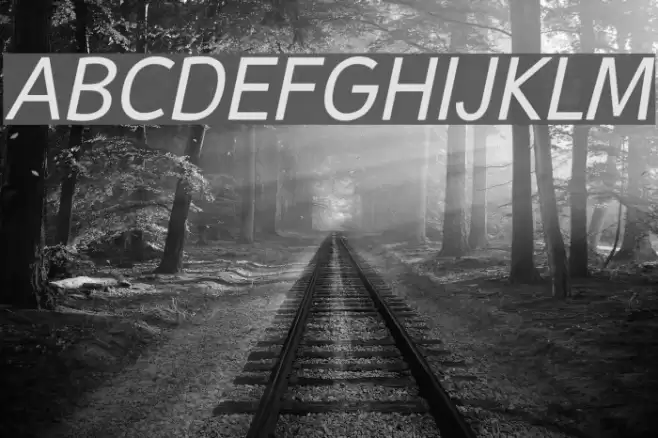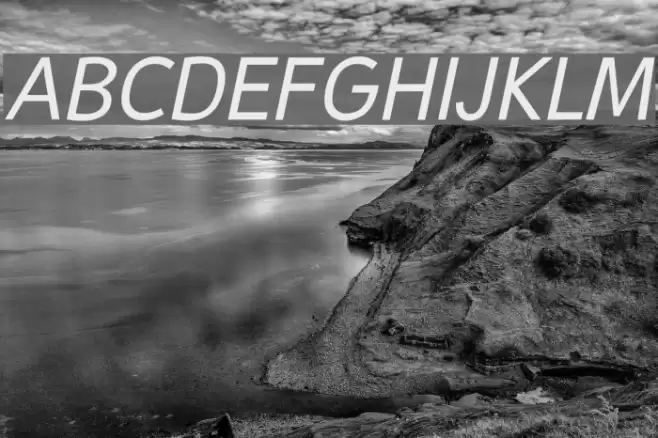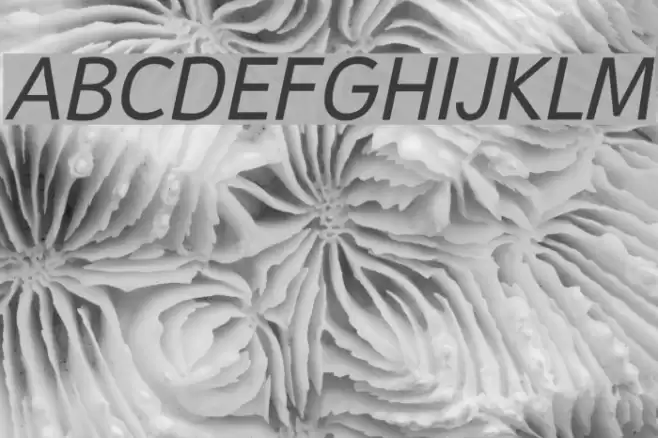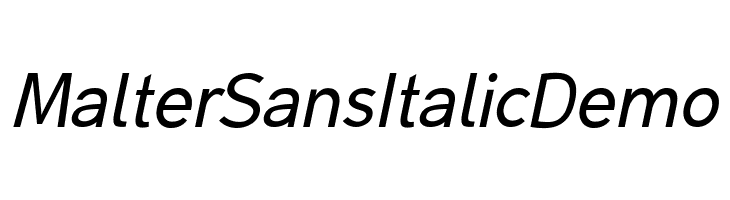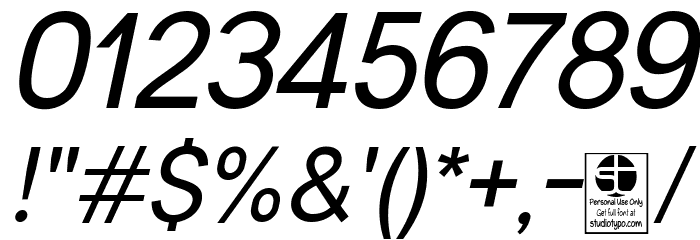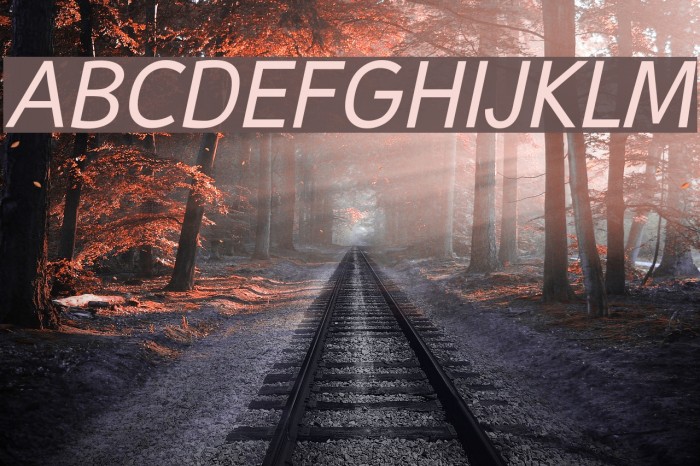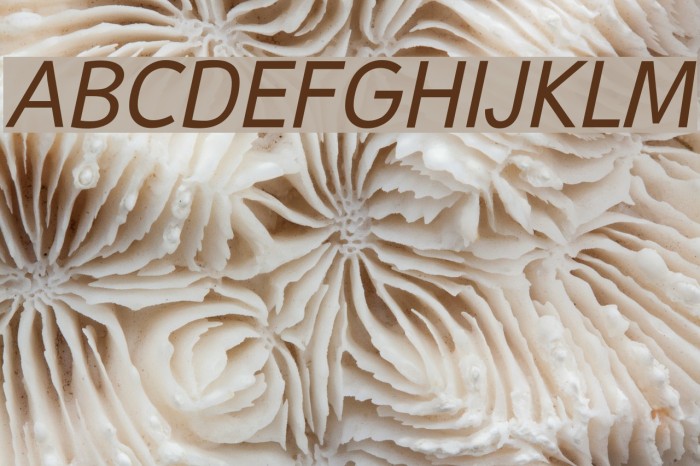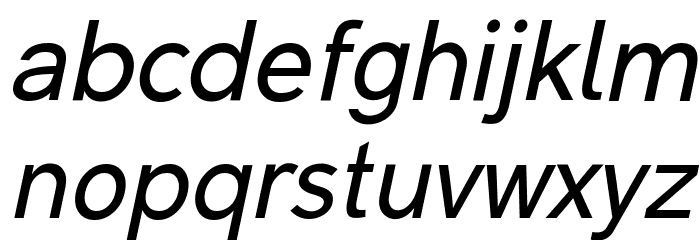
Malter Sans Italic Demo Font
Malter Sans Italic Demo Description
This font features a sleek, modern sans-serif design with a distinct italic slant, giving it a dynamic and forward-moving appearance. The characters are clean and well-defined, with a uniform stroke width that maintains consistency across all letters and numbers. The uppercase and lowercase letters are balanced, providing a harmonious look that is both professional and approachable. The numerals are clear and easy to read, making them suitable for a variety of applications. Special characters are included, offering versatility for different design needs. The overall style is contemporary, making it ideal for modern branding and design projects.
A modern, italic sans-serif font with clean lines and a dynamic slant from Uncategorized fonts.
- Proposed Projects: Ideal for branding, advertising, web design, and editorial projects where a modern and sleek appearance is desired.